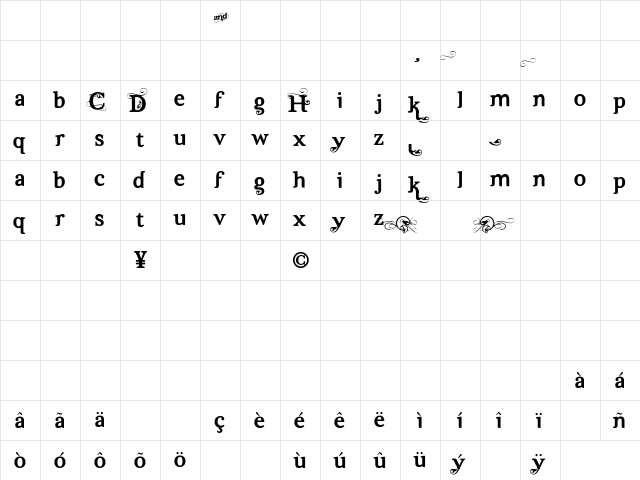
Dutch & Harley Regular Font Preview
Dutch & Harley Regular
Design Context for Dutch & Harley Typeface
Dutch & Harley is a composed and adaptable typeface that performs quietly and consistently across a wide range of design contexts.